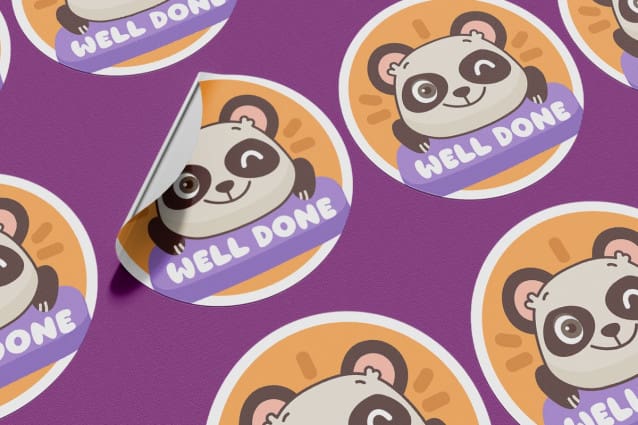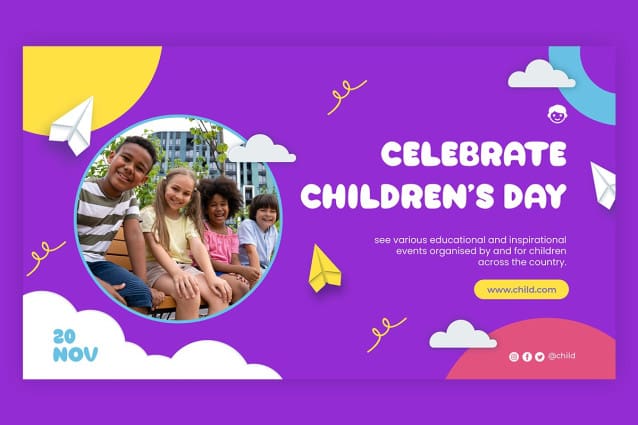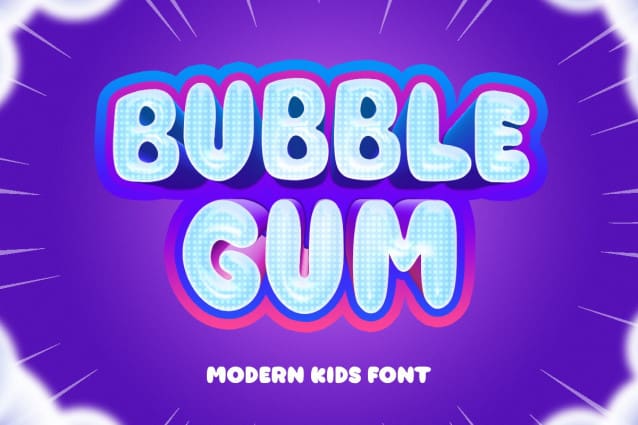
Bubble Gum Font
Bubble Gum Font – Modern Kids Font was made to give a cute and fun modern font impression to anyone who sees it. This is in line with the characteristics of letters which have simple shapes and are like bubbles without any additions. People who read texts using this typeface do not have to try hard to read and understand them.
As the name implies, Bubble Gum Modern Kids Font is the best font to use as anything that has a children’s theme. This font can use as a digital font. Its application can be in cartoon films, fairytale videos, educational videos, and advertisements containing products about children. Its application accompanied by colors and all ornaments related to children will bring out the features of this font to the fullest.
Bubble Gum Modern Kids Font can use as a print font. Its application can be on children’s theme posters, cartoon stickers, snack, and drink packaging, and children’s themed event banners. The characteristics of a simple font will make it easier for anyone to read it. This font will be the right choice for those who like simplicity and don’t like the look of a busy design. This font is synonymous with cute and fun impressions. This type of font can be printed in small or large sizes and still looks good up close or from a distance. This font is legible font.